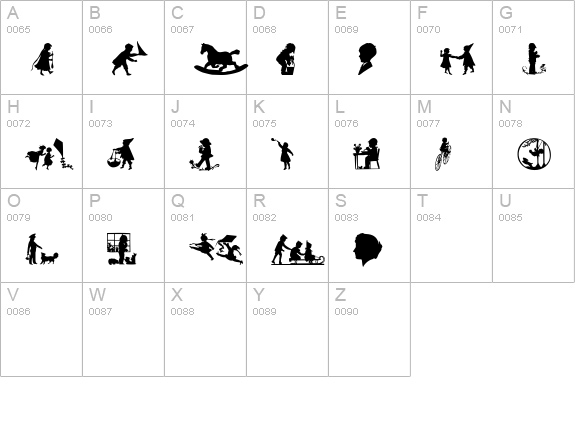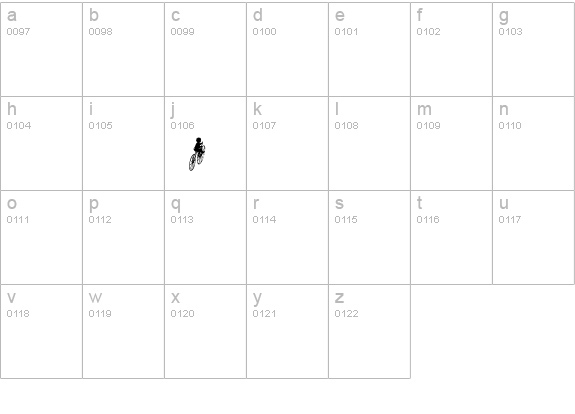
Introducing DBQsChildrenSilhouettes font, a whimsical and playful typeface perfect for adding a touch of fun to your design projects. This font features charming silhouettes of children engaged in various activities, creating a delightful and imaginative aesthetic. Whether you're working on children's books, posters, invitations, or any other creative project, DBQsChildrenSilhouettes font is sure to captivate and enchant your audience. The best part? This font is available for free download at FontsMarket.com, making it easily accessible for designers looking to add a touch of magic to their work. Embrace the joy and innocence of childhood with DBQsChildrenSilhouettes font and watch your designs come to life with its unique charm and character.